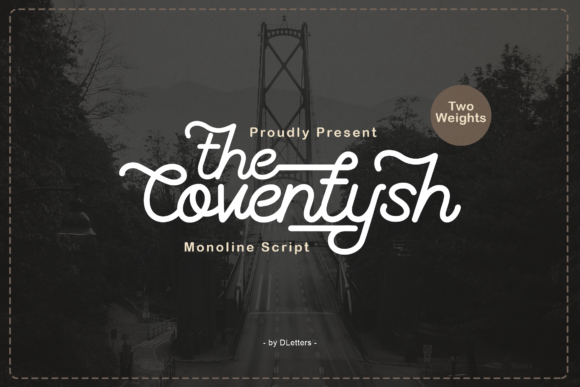
Unleash the allure of The Coventysh Font, a captivating script that dances across your designs with a touch of vintage elegance. Immerse yourself in the beauty of its handwritten strokes, meticulously crafted to evoke the nostalgia of timeless calligraphy. Yet, amidst its classic charm, The Coventysh exudes a contemporary flair, infusing your projects with a refreshing modernity.
Step into a world of boundless creativity with The Coventysh Font. Its versatility knows no bounds, whether you seek to adorn your designs with intricate tattoos or lend a touch of sophistication to your branding. Its graceful curves and flourishes will effortlessly elevate your projects, transforming them into masterpieces of visual delight.
Indulge in the timeless beauty of The Coventysh Font. Let its vintage charm captivate your imagination and its contemporary flair inspire your creations. Experience the joy of crafting designs that radiate elegance and leave an unforgettable impression. Join the ranks of discerning designers who have fallen head over heels for The Coventysh Font and witness the transformative power it holds.
Don't resist the allure of The Coventysh Font any longer. Embrace its beauty, unleash your creativity, and elevate your projects to new heights. Immerse yourself in the world of The Coventysh Font and let its magic ignite your imagination.